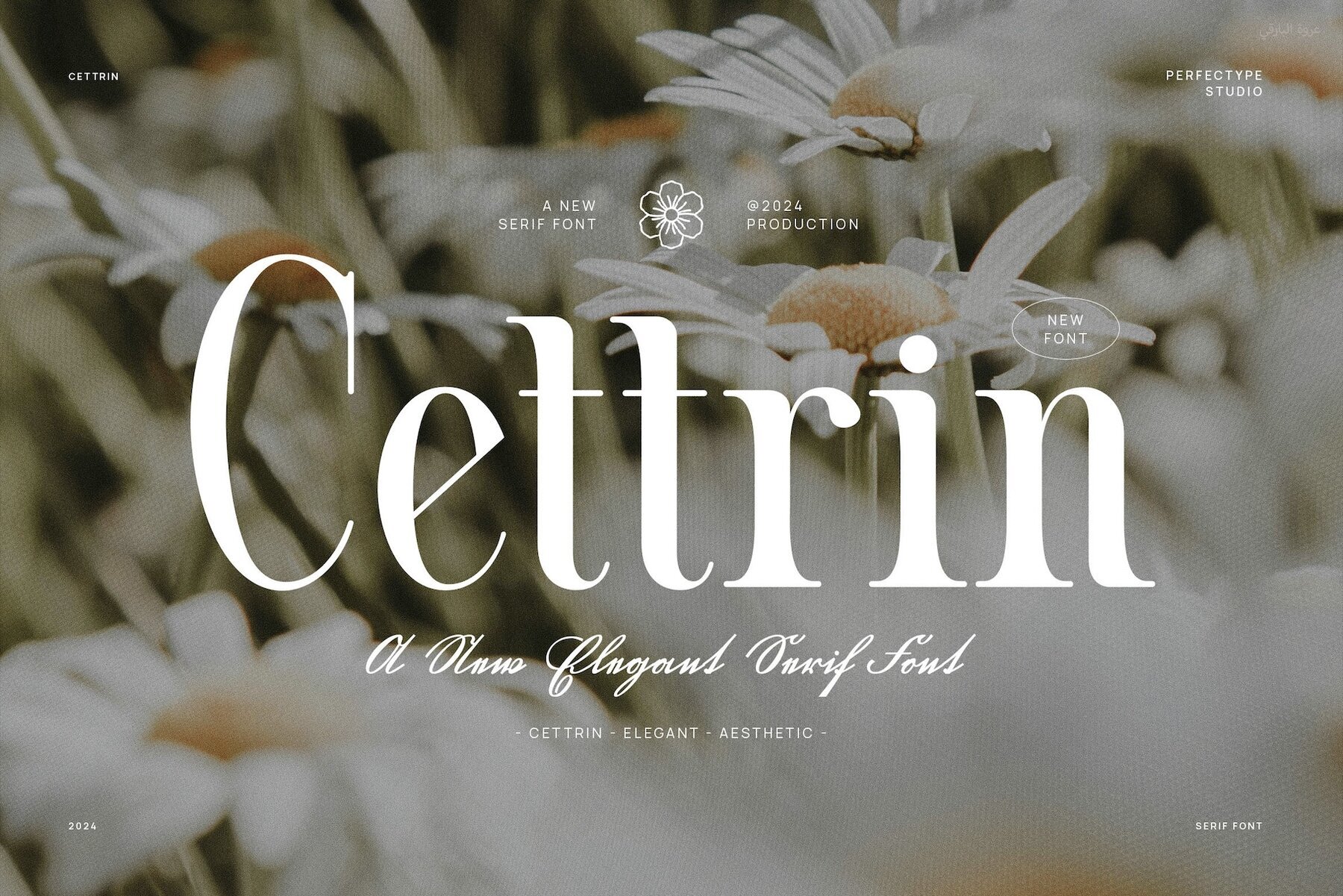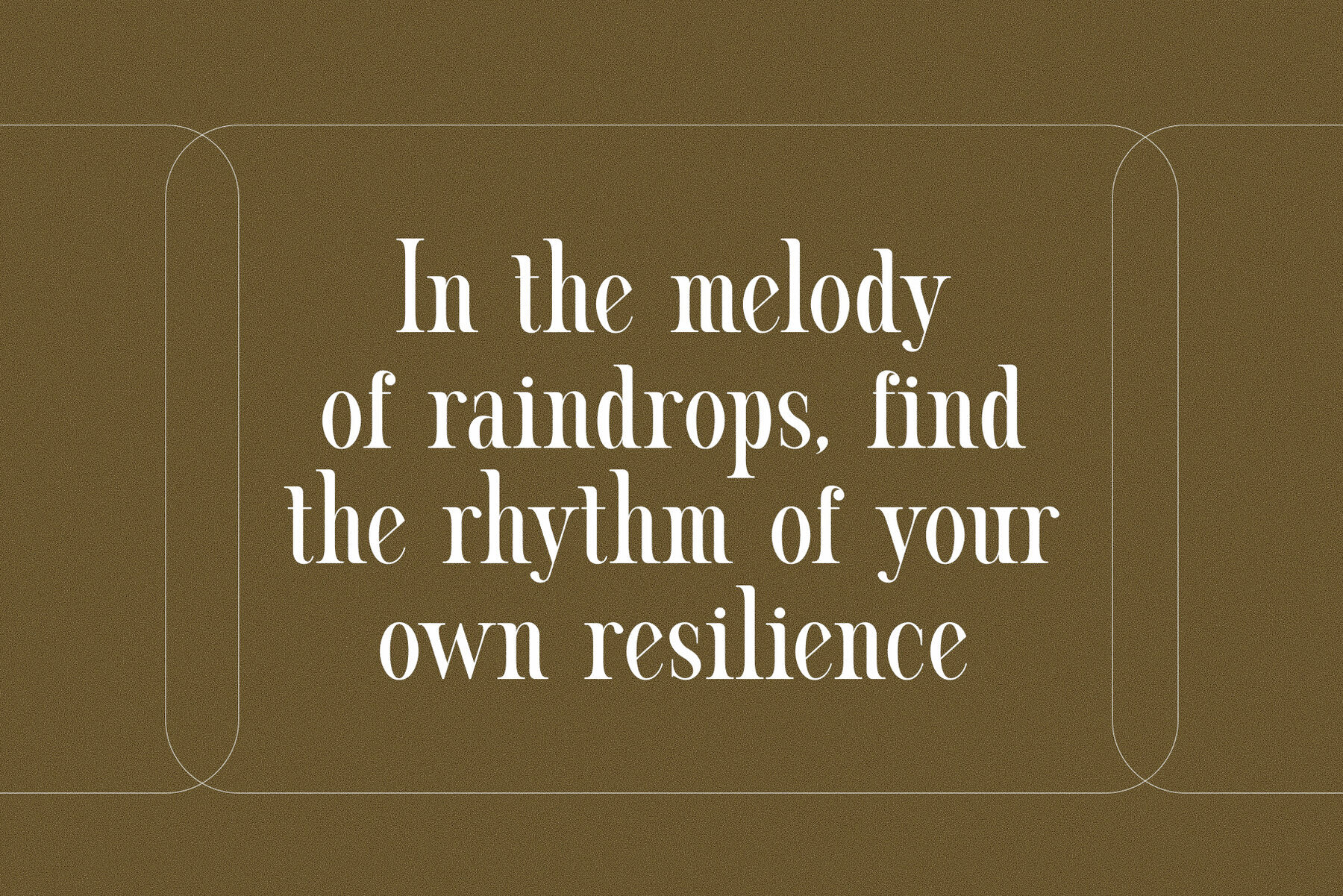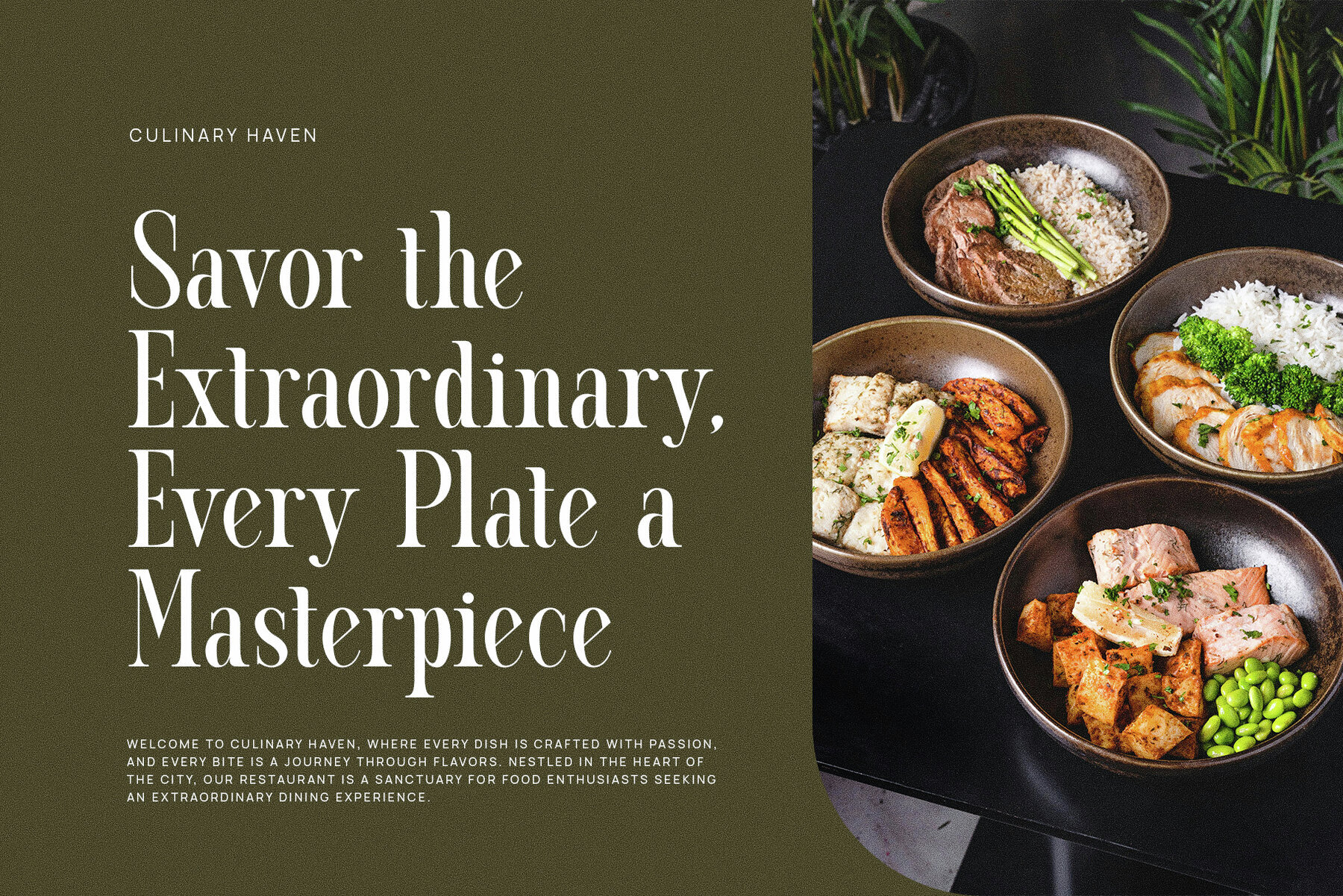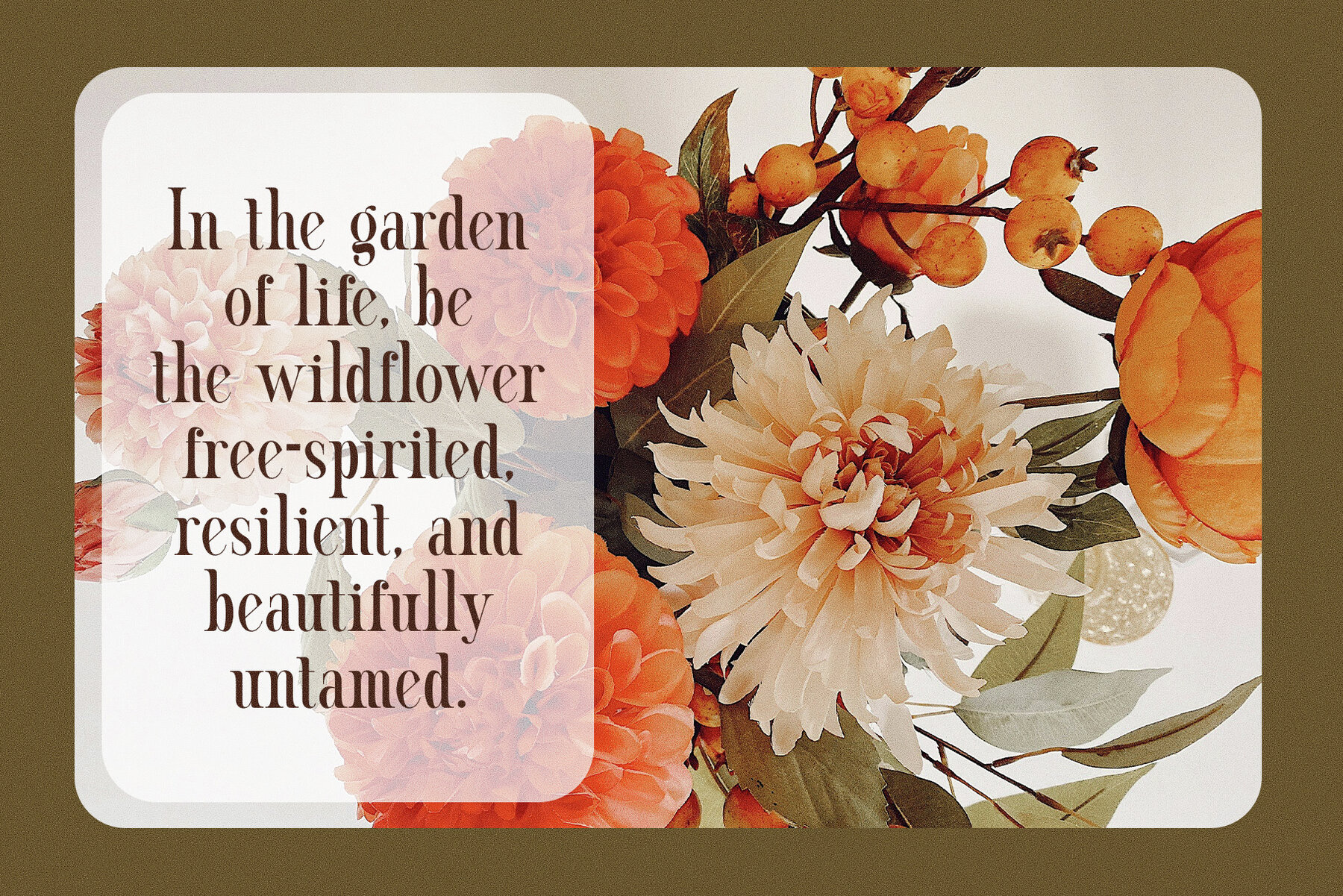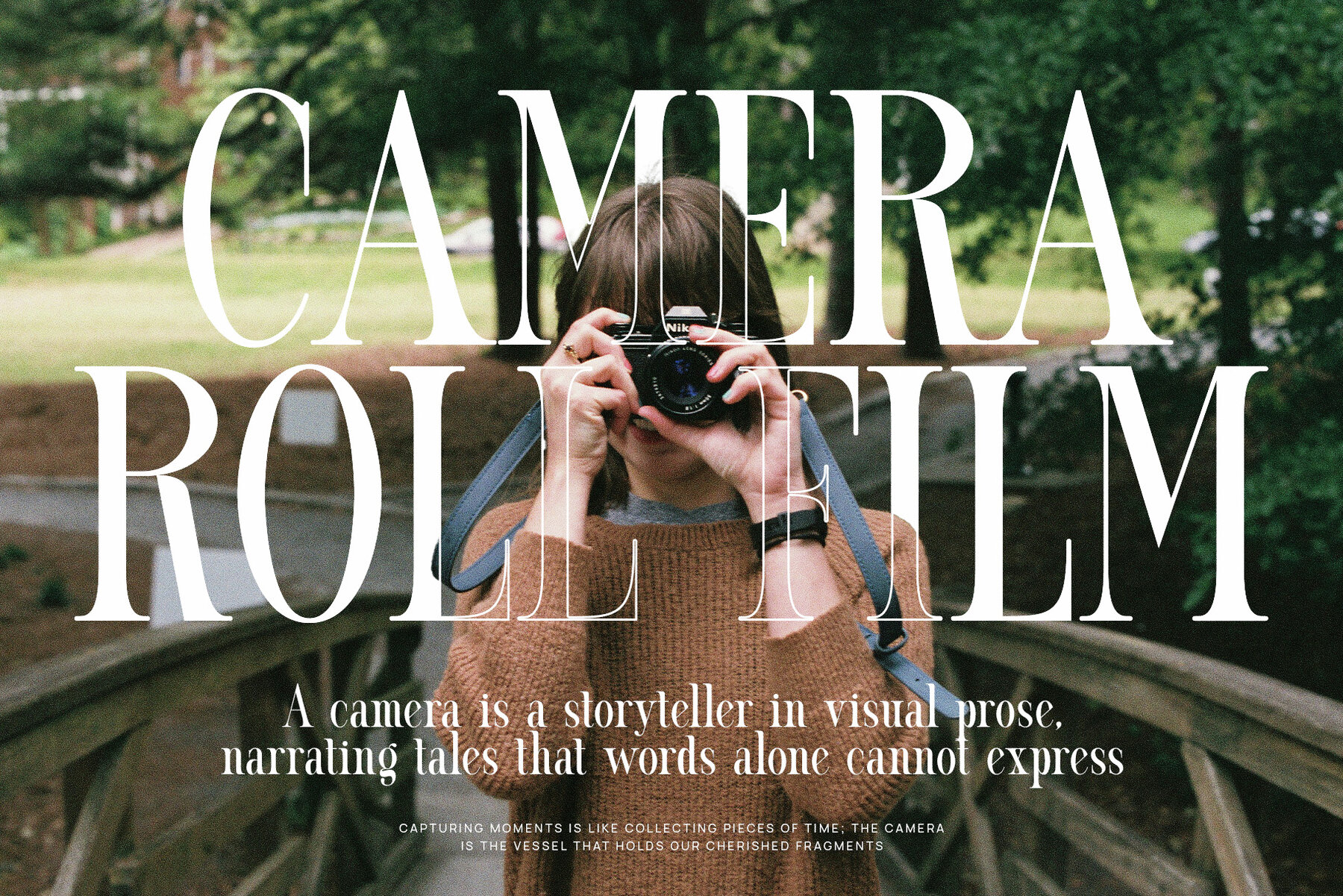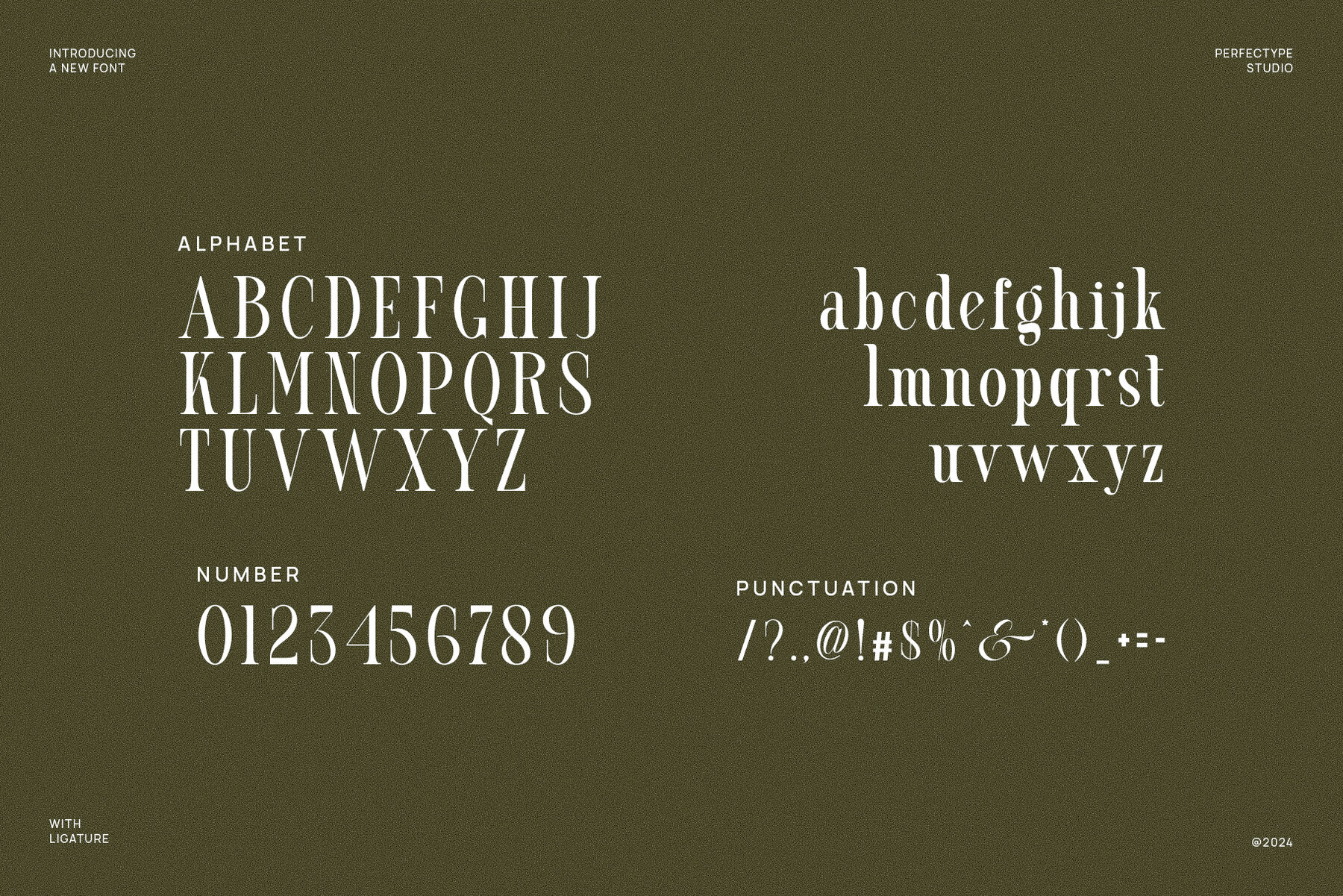
Cettrin Font
Cettrin
Cettrin Elegant Serif Font combines timeless elegance with contemporary flair, making it a standout choice for graphic and digital designers. With its graceful serifs and uniquely crafted letterforms, this typeface exudes a sophisticated aesthetic, perfect for enhancing the luxury of any creative project. The font features intricate ligatures and alternate characters, offering flexibility to design personalized typography that remains both visually striking and highly legible.
Ideal for high-end branding, Cettrin shines in logos, product packaging, and visual identities. Its stylish design ensures it captivates in both digital and print formats, making it an excellent choice for websites, advertisements, and editorial content. Whether creating a chic boutique logo or an upscale magazine layout, Cettrin adds a touch of elegance and professionalism.
Tailored for industries that demand a polished look, Cettrin is particularly suitable for fashion, food, lifestyle, and boutique brands. Its versatility makes it effective across various contexts, from large headings to smaller body text, ensuring consistent impact across media. With its striking letterforms, smooth ligatures, and distinct alternates, Cettrin is an indispensable tool for crafting memorable, high-end designs.